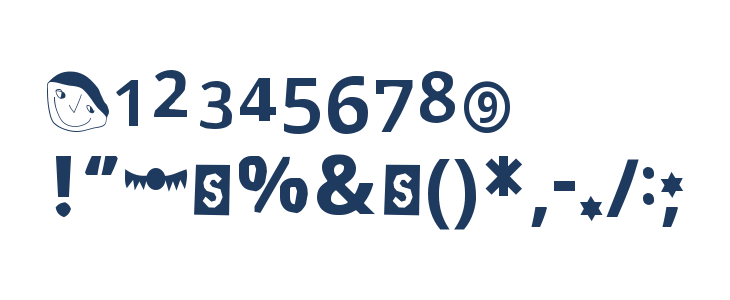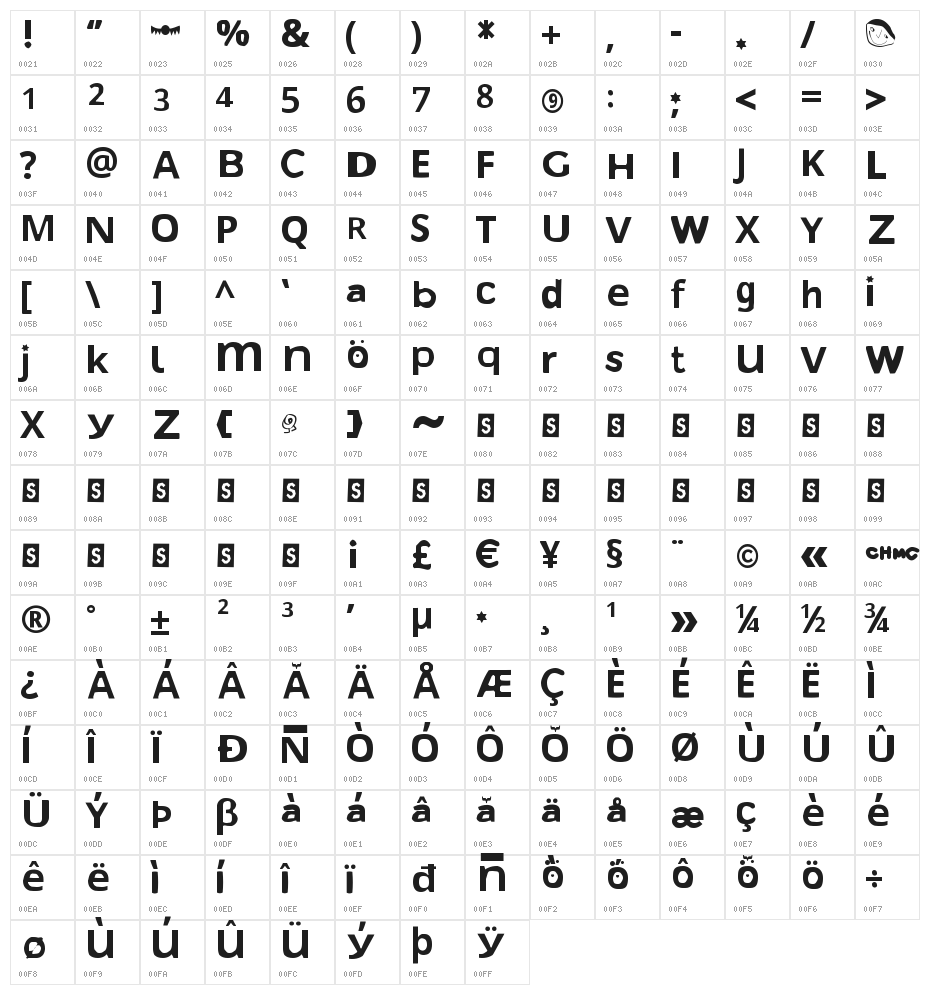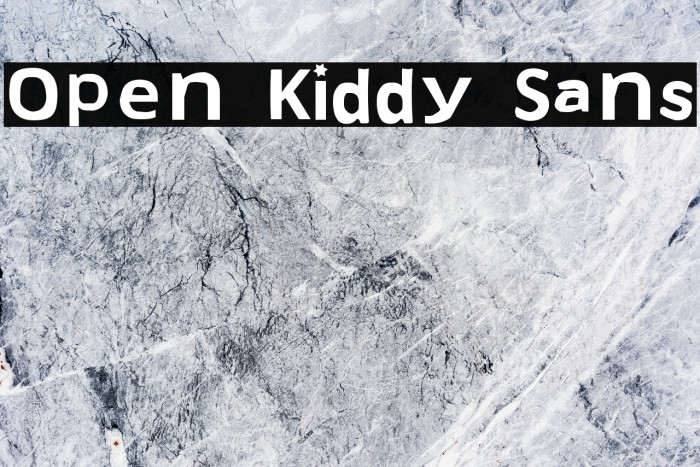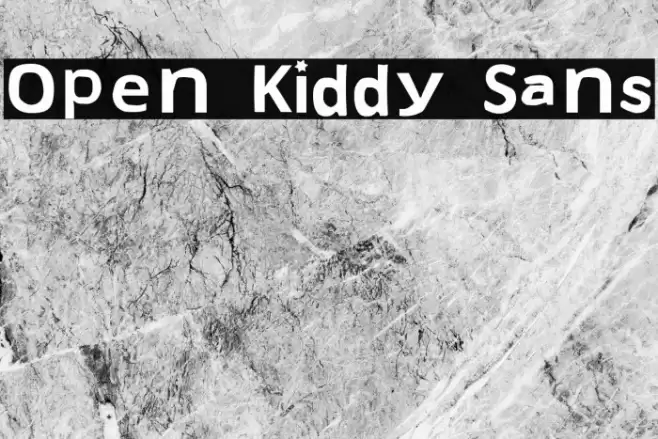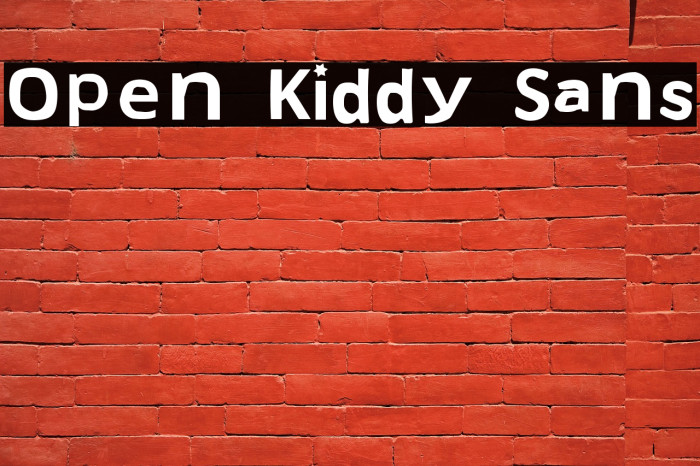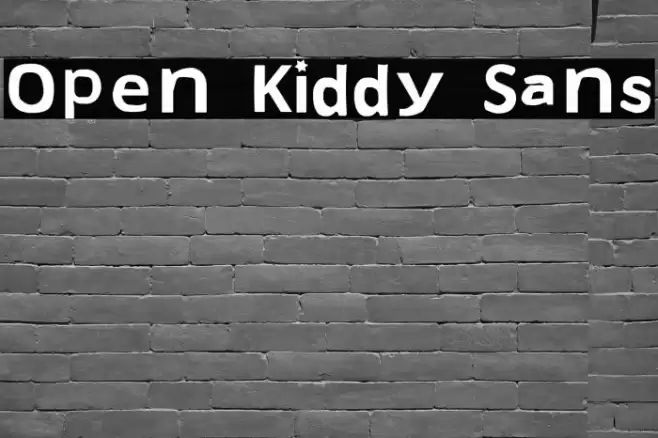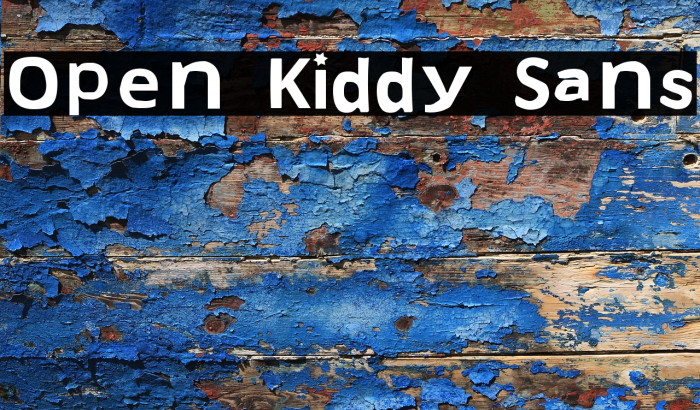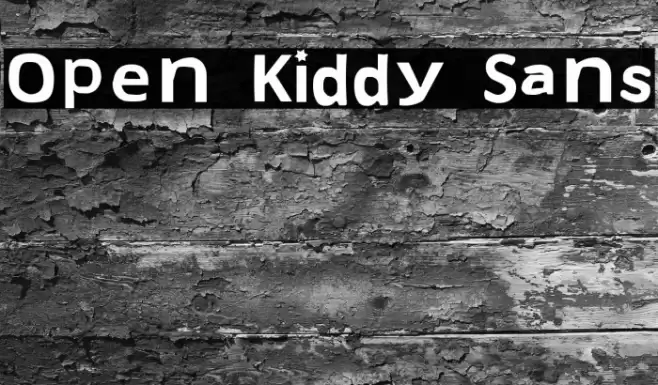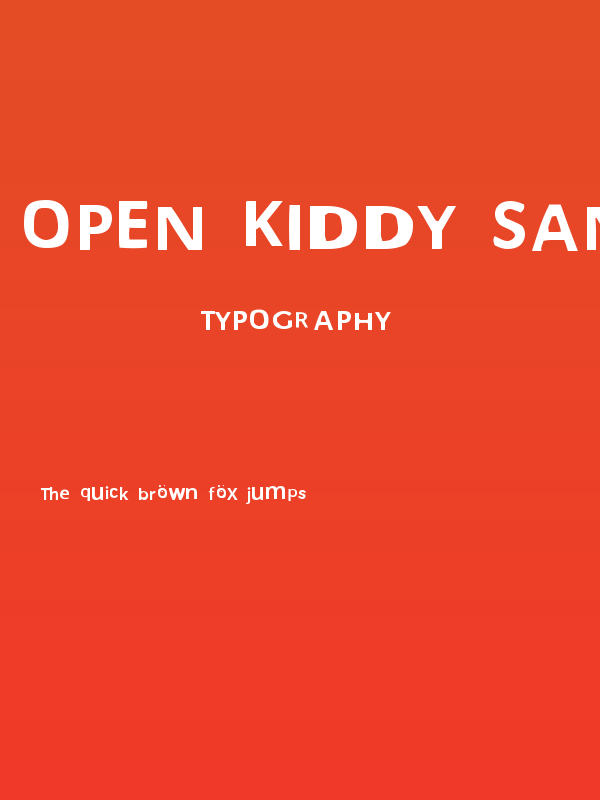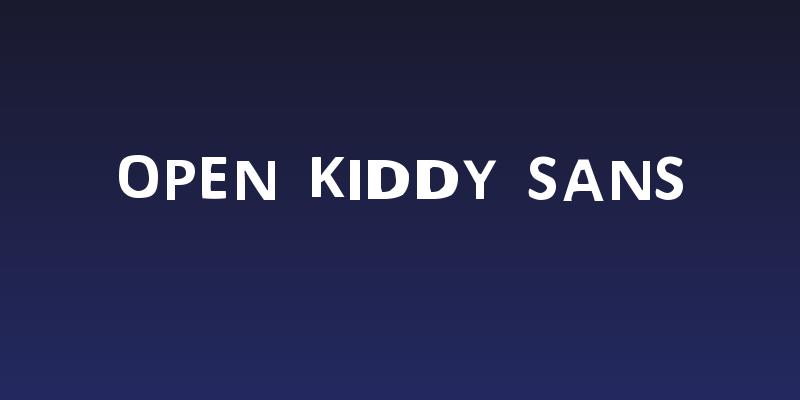
Open Kiddy Sans Font
Open Kiddy Sans Description
This playful and whimsical font features bold, rounded characters that convey a sense of fun and creativity. The uppercase letters are slightly wider with a consistent stroke width, while the lowercase letters maintain a friendly and approachable appearance. The inclusion of special characters and numbers follows the same playful design, making it suitable for a variety of creative projects. The font's unique style is enhanced by its slightly irregular shapes, adding to its charm and appeal. It is perfect for children's books, educational materials, and playful branding projects.
| Proposed Projects | Children's books, educational materials, playful branding, toy packaging, and creative posters. |